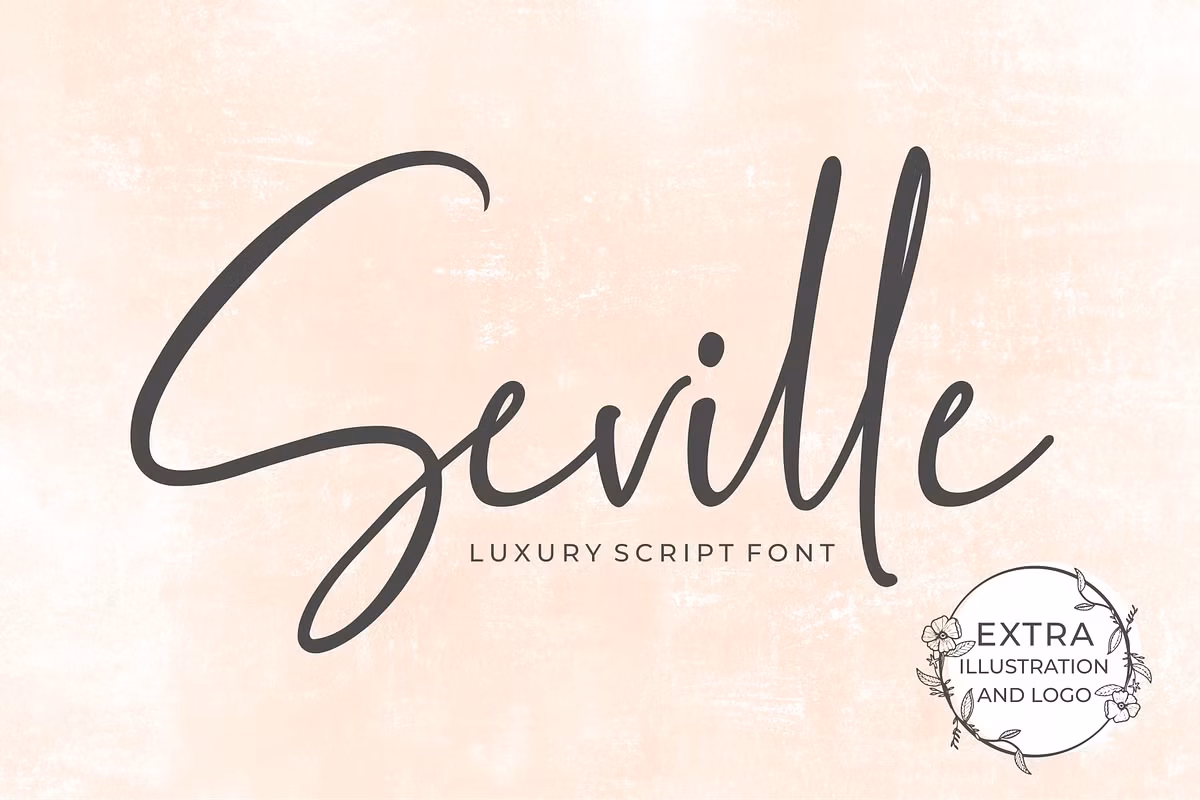
The Seville Script Font Free Download is a sophisticated and elegant script typeface that captures the essence of handwritten luxury. Perfect for wedding invitations, branding, social media posts, logo designs, and high-end stationery, this font brings a refined, artistic touch to your designs.
With its smooth curves and stylish flourishes, Seville Script adds a personal, graceful element to any project. It includes uppercase and lowercase characters, ligatures, stylistic alternates, punctuation, and multilingual support, ensuring versatility and flexibility for a wide range of creative uses.